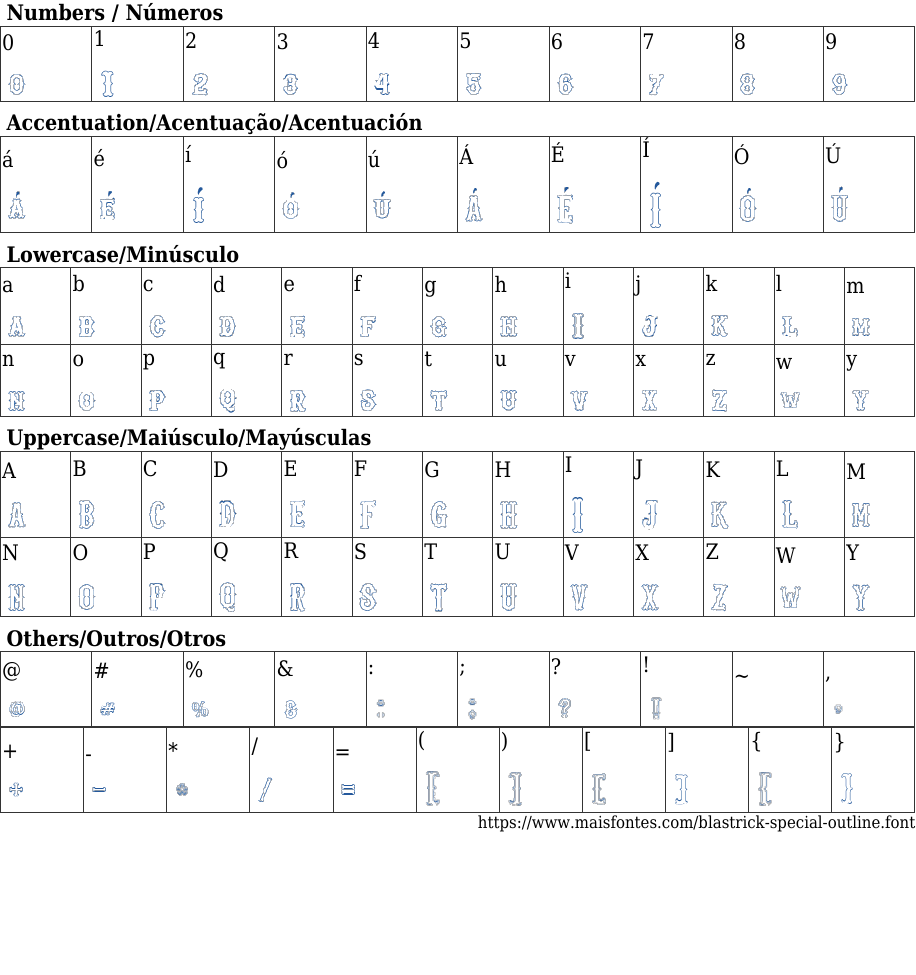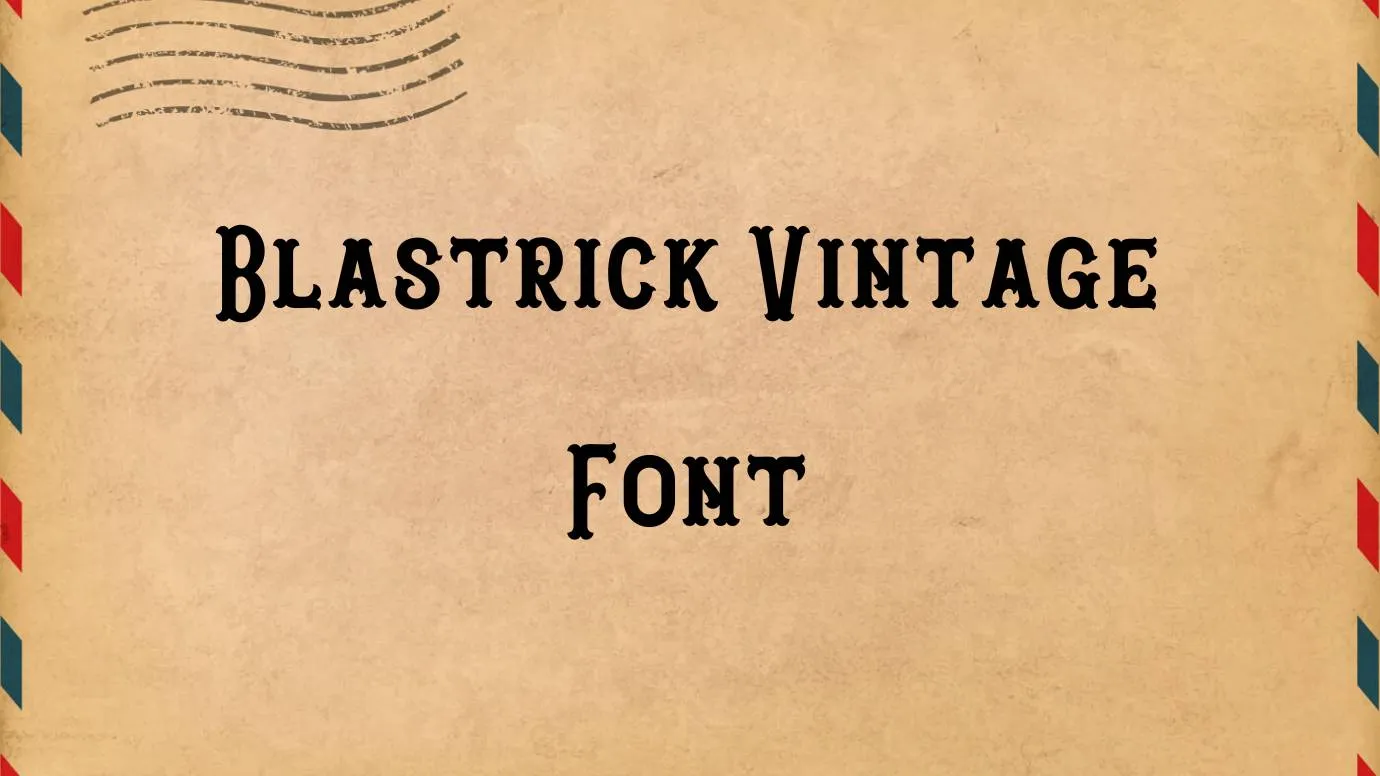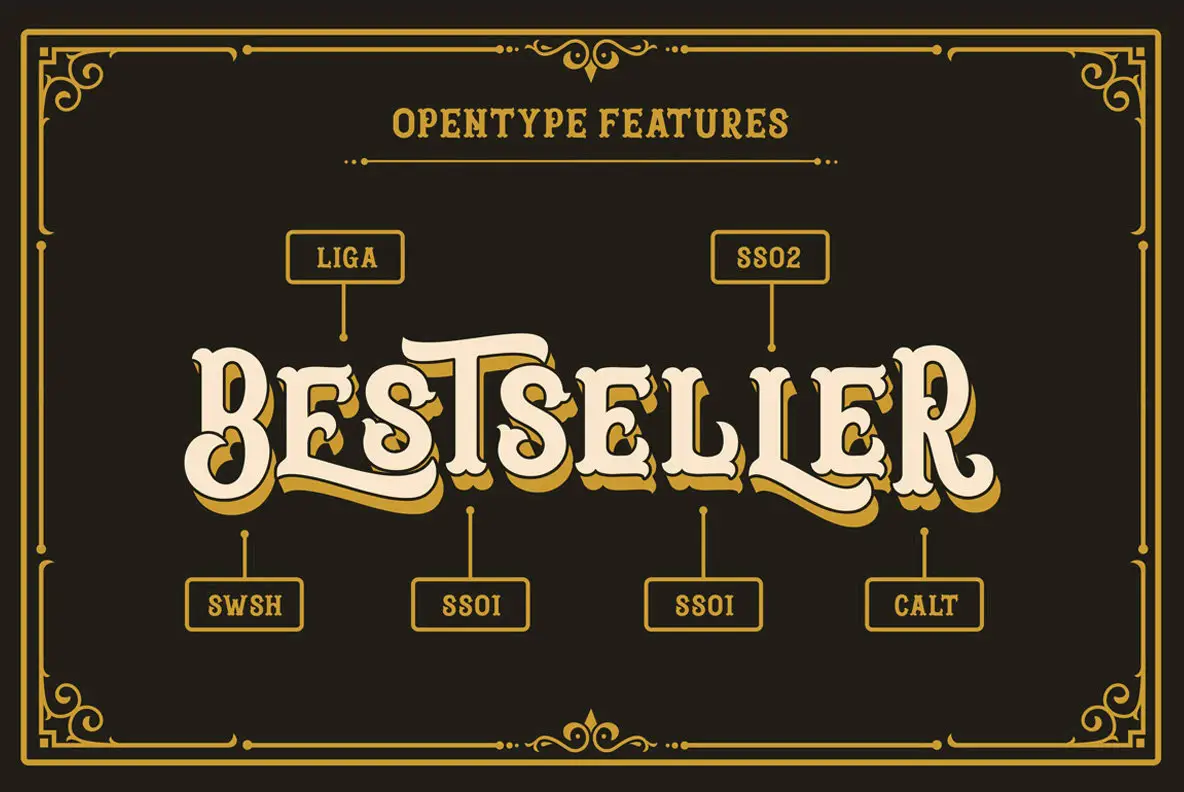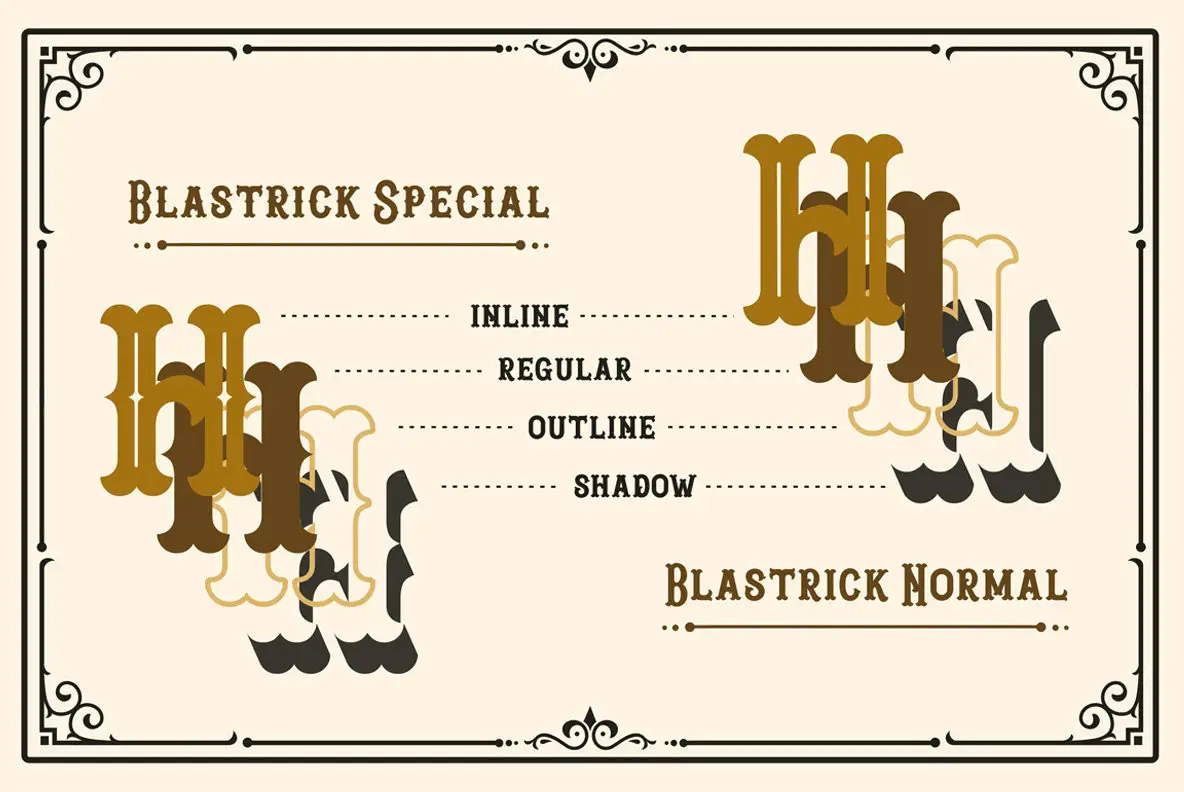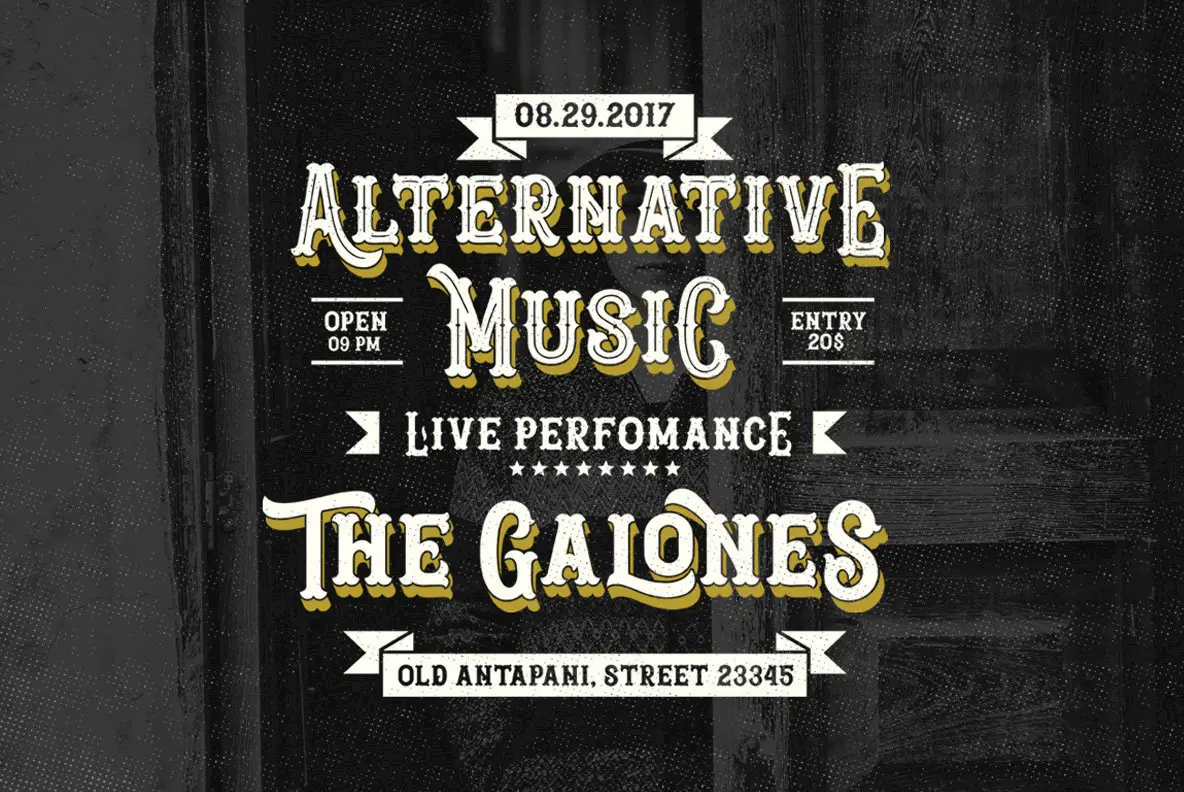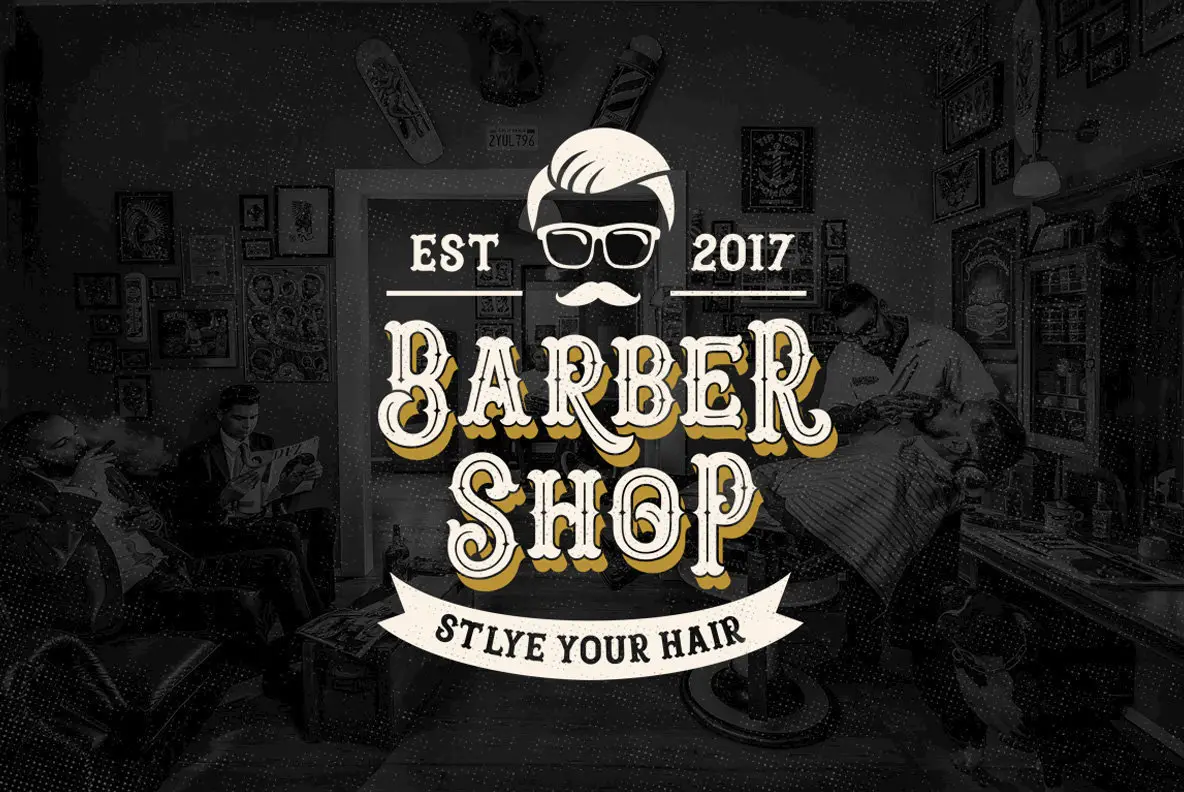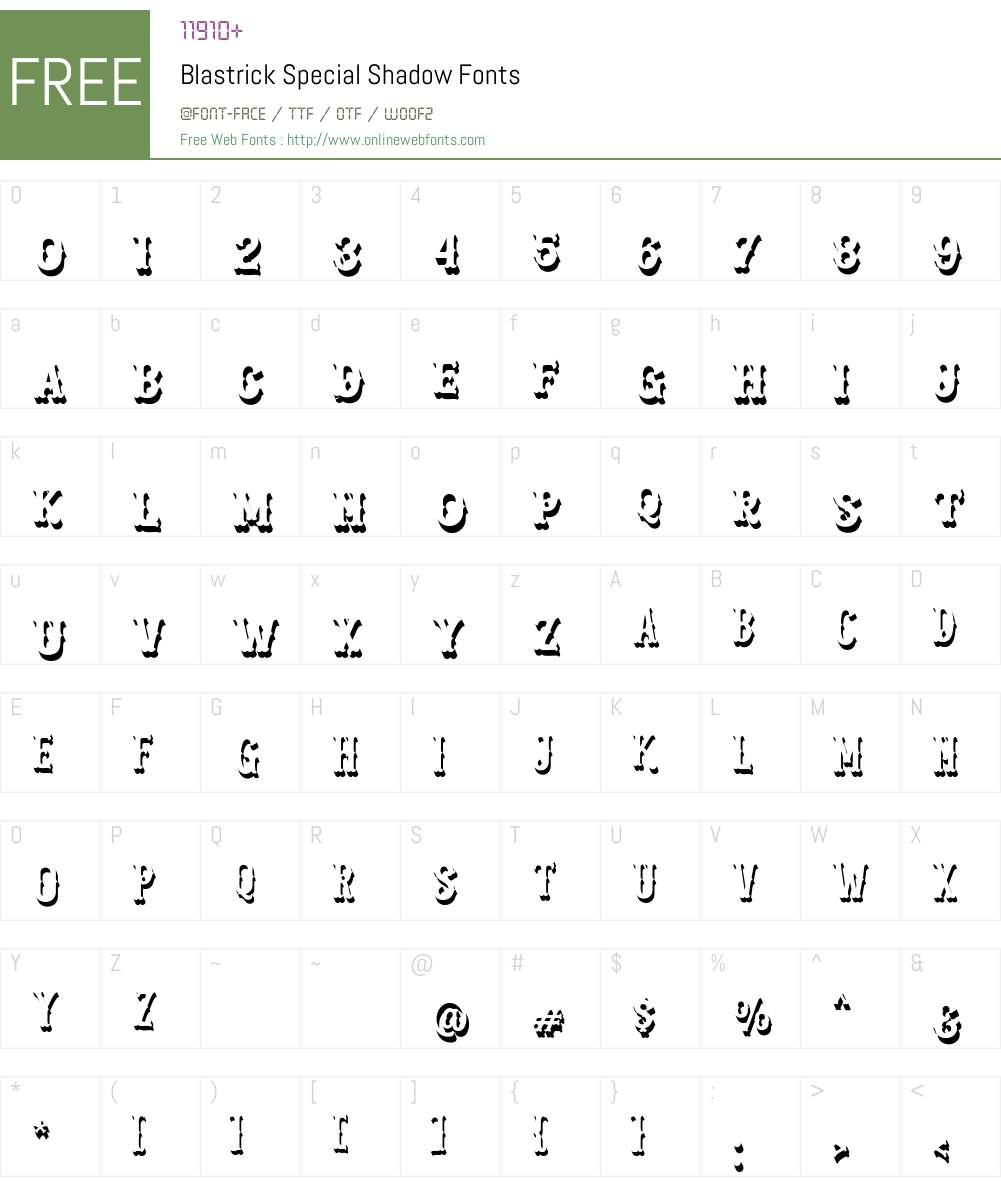
Blastrick Special Font . Blastrick is a vintage layered type system with endless design possibilities using different combinations of fonts and colors. Also, the blastrick special font. Blastrick is a vintage layered type system that could be effectively used by trying out different variants of fonts. Blastrick is a vintage layered type system with endless design possibilities using different combinations of fonts and colors. You can use the blastrick special to create interesting designs, covers, shop and store name and logos. Blastrick is a vintage layered type system with endless design possibilities using different combinations of fonts and colors. Blastrick special inline font free download. Thousands of designers (famous or not) use the image font detection system to find a font or similar free fonts from an image. Blastrick is a vintage layered type system with endless design possibilities using different combinations of fonts and colors. A great choice for highlighting your design elements.
Blastrick is a vintage layered type system that could be effectively used by trying out different variants of fonts. A great choice for highlighting your design elements. Blastrick is a vintage layered type system with endless design possibilities using different combinations of fonts and colors. Thousands of designers (famous or not) use the image font detection system to find a font or similar free fonts from an image. Blastrick is a vintage layered type system with endless design possibilities using different combinations of fonts and colors. Blastrick special inline font free download. Also, the blastrick special font. You can use the blastrick special to create interesting designs, covers, shop and store name and logos. Blastrick is a vintage layered type system with endless design possibilities using different combinations of fonts and colors. Blastrick is a vintage layered type system with endless design possibilities using different combinations of fonts and colors.
Blastrick Special Font You can use the blastrick special to create interesting designs, covers, shop and store name and logos. Blastrick is a vintage layered type system that could be effectively used by trying out different variants of fonts. Blastrick is a vintage layered type system with endless design possibilities using different combinations of fonts and colors. Blastrick is a vintage layered type system with endless design possibilities using different combinations of fonts and colors. You can use the blastrick special to create interesting designs, covers, shop and store name and logos. A great choice for highlighting your design elements. Thousands of designers (famous or not) use the image font detection system to find a font or similar free fonts from an image. Blastrick special inline font free download. Also, the blastrick special font. Blastrick is a vintage layered type system with endless design possibilities using different combinations of fonts and colors. Blastrick is a vintage layered type system with endless design possibilities using different combinations of fonts and colors.
Download free Blastrick Special Outline Regular font Blastrick Special Font Blastrick is a vintage layered type system with endless design possibilities using different combinations of fonts and colors. Blastrick special inline font free download. Blastrick is a vintage layered type system that could be effectively used by trying out different variants of fonts. You can use the blastrick special to create interesting designs, covers, shop and store name and logos.. Blastrick Special Font.
Blastrick Vintage Font Free Download Blastrick Special Font Also, the blastrick special font. Blastrick is a vintage layered type system with endless design possibilities using different combinations of fonts and colors. A great choice for highlighting your design elements. Blastrick is a vintage layered type system with endless design possibilities using different combinations of fonts and colors. Blastrick special inline font free download. You can use the blastrick. Blastrick Special Font.
Blastrick Font YouWorkForThem Blastrick Special Font Blastrick is a vintage layered type system with endless design possibilities using different combinations of fonts and colors. You can use the blastrick special to create interesting designs, covers, shop and store name and logos. Thousands of designers (famous or not) use the image font detection system to find a font or similar free fonts from an image. A great. Blastrick Special Font.
Download free Blastrick Special Regular font Blastrick Special.otf Blastrick Special Font Blastrick is a vintage layered type system with endless design possibilities using different combinations of fonts and colors. You can use the blastrick special to create interesting designs, covers, shop and store name and logos. A great choice for highlighting your design elements. Also, the blastrick special font. Blastrick is a vintage layered type system with endless design possibilities using. Blastrick Special Font.
Blastrick Font Free Download Blastrick Special Font Blastrick is a vintage layered type system with endless design possibilities using different combinations of fonts and colors. You can use the blastrick special to create interesting designs, covers, shop and store name and logos. Blastrick is a vintage layered type system that could be effectively used by trying out different variants of fonts. Blastrick special inline font free download.. Blastrick Special Font.
Blastrick Font YouWorkForThem Blastrick Special Font Blastrick is a vintage layered type system that could be effectively used by trying out different variants of fonts. A great choice for highlighting your design elements. You can use the blastrick special to create interesting designs, covers, shop and store name and logos. Blastrick is a vintage layered type system with endless design possibilities using different combinations of fonts. Blastrick Special Font.
Blastrick Font Free Download Blastrick Special Font Blastrick special inline font free download. Blastrick is a vintage layered type system with endless design possibilities using different combinations of fonts and colors. Blastrick is a vintage layered type system with endless design possibilities using different combinations of fonts and colors. Blastrick is a vintage layered type system with endless design possibilities using different combinations of fonts and colors.. Blastrick Special Font.
Blastrick, Fonts GraphicRiver Blastrick Special Font Thousands of designers (famous or not) use the image font detection system to find a font or similar free fonts from an image. Blastrick special inline font free download. Blastrick is a vintage layered type system with endless design possibilities using different combinations of fonts and colors. Also, the blastrick special font. Blastrick is a vintage layered type system with. Blastrick Special Font.